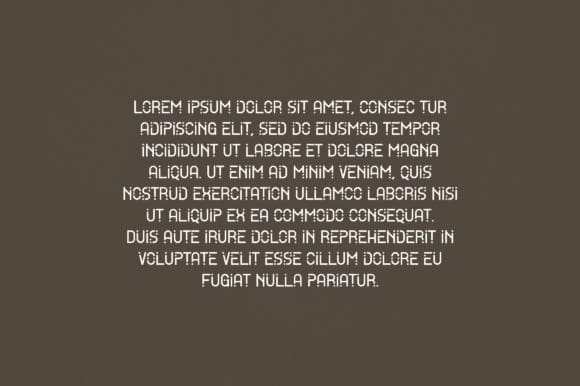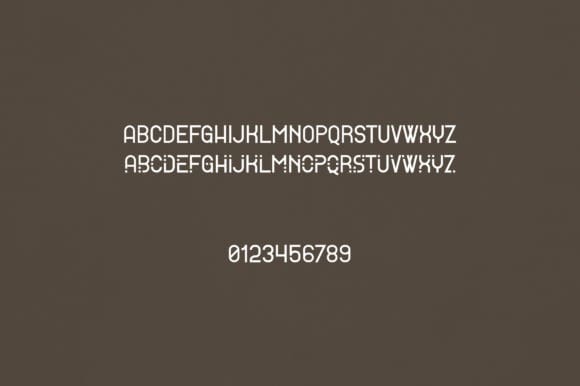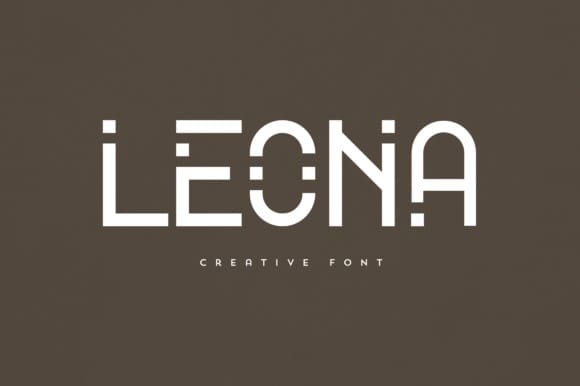
Leona Font
Leona Font is an elegant and versatile display font that will make your typography truly unique! It will enchant every logo, branding, headline, or plain text!